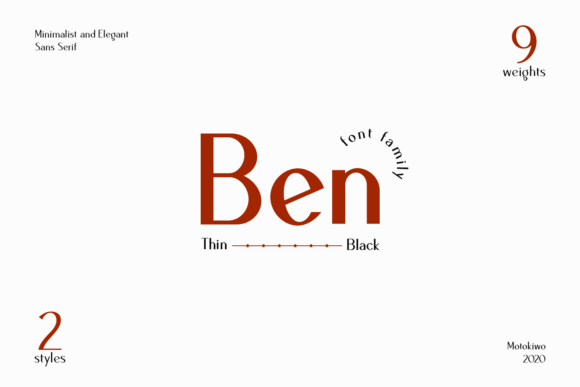
Introducing Ben Font: The Ultimate Sans Serif for Creative Projects
Are you tired of using the same old fonts for your design projects? Look no further than Ben Font, a minimal and neat sans serif font that’s perfect for adding a touch of elegance to your creative ideas. With its clean lines and simple design, Ben Font is incredibly versatile and can be matched with a wide range of projects, from modern branding to digital marketing materials.
The Benefits of Ben Font
So, what makes Ben Font so special? Here are just a few of the benefits of using this amazing font:
- Versatility: Ben Font is incredibly versatile and can be used for a wide range of projects, from headings and titles to body text and more.
- Legibility: The clean lines and simple design of Ben Font make it easy to read, even at small sizes.
- Elegance: Ben Font adds a touch of elegance to any project, making it perfect for designers and crafters who want to create high-end designs.
Why Choose Ben Font?
With so many fonts to choose from, why should you choose Ben Font? Here are just a few reasons why Ben Font stands out from the crowd:
- Unique Design: Ben Font has a unique design that’s both modern and timeless, making it perfect for designers who want to create something truly special.
- Easy to Use: Ben Font is incredibly easy to use, with a simple and intuitive design that’s easy to read and understand.
- High-Quality: Ben Font is a high-quality font that’s designed to deliver exceptional results, every time.
How to Use Ben Font
So, how can you use Ben Font in your design projects? Here are just a few ideas to get you started:
- Headings and Titles: Use Ben Font for headings and titles to add a touch of elegance to your designs.
- Body Text: Use Ben Font for body text to create a clean and easy-to-read design.
- Branding: Use Ben Font for branding materials, such as logos and business cards, to create a professional and cohesive look.
Tips and Tricks for Getting the Most Out of Ben Font
Here are just a few tips and tricks for getting the most out of Ben Font:
- Experiment with Different Sizes: Experiment with different sizes to find the perfect fit for your design.
- Pair with Other Fonts: Pair Ben Font with other fonts to create a unique and interesting design.
- Use for Digital and Print: Use Ben Font for both digital and print projects to create a cohesive look across all of your designs.
In conclusion, Ben Font is an amazing sans serif font that’s perfect for designers and crafters who want to add a touch of elegance to their creative projects. With its clean lines, simple design, and incredible versatility, Ben Font is the perfect choice for a wide range of projects. So why wait? Download Ben Font today and start creating stunning designs that stand out from the crowd!